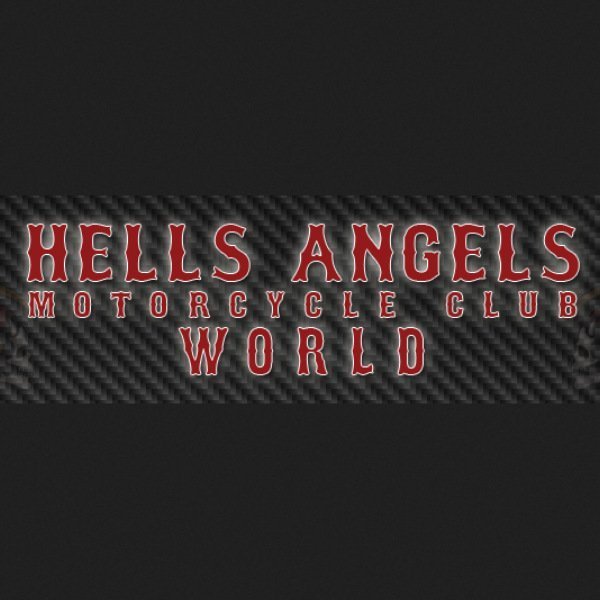
The font used for the logo of the hells Angels Motorcycle Club as seen on their website is similar to Bosox font by Lee Gordon. Bosox font family is a western font family which consists of five fonts along with Outline, Regular, SemiBold, Outline Heavy and Full style. You can download this Bosox font for free here.